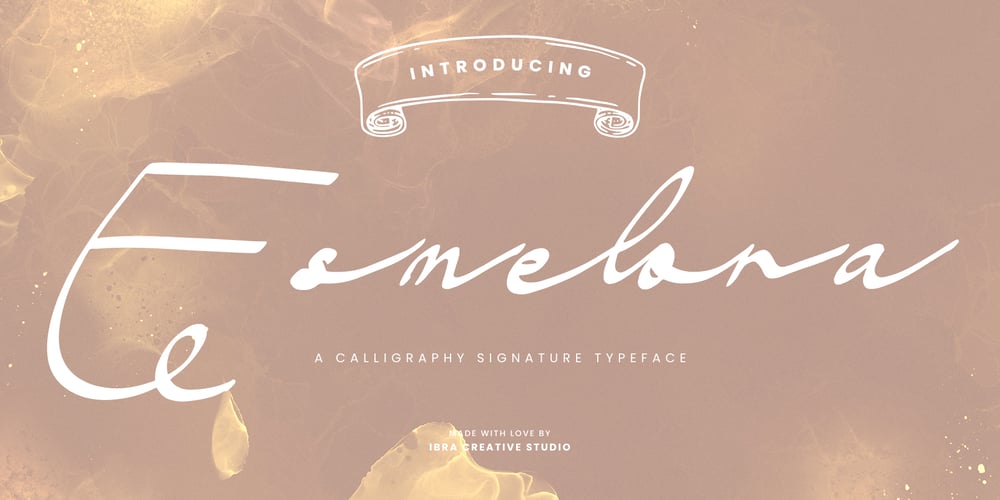
Esmelora Font Family was designed by Roisatul Azizah and published by IbraCreative. Esmelora contains 1 styles and family package options. Esmelora – A Calligraphy Signature TypefaceEsmelora, a captivating calligraphy signature typeface, exudes elegance and refinement with its graceful strokes and fluid lines. Each letter is meticulously crafted to emulate the artistry of a hand-written signature, creating a sophisticated and personal touch. Esmelora’s delicate curves and stylish flourishes lend an air of timeless beauty to any design, making it an ideal choice for invitations, branding, and luxury-oriented projects. The typeface seamlessly blends traditional calligraphic elements with a modern sensibility, resulting in a harmonious balance that is both classic and contemporary. With its intricate detailing and graceful aesthetic, Esmelora elevates the concept of signature fonts, providing a distinctive and memorable typographic solution for those seeking an exquisite and personalized touch in their creative endeavors.Esmelora is perfect for branding projects, logo, wedding designs, social media posts, advertisements, product packaging, product designs, label, photography, watermark, invitation, stationery, game, fashion and any projects.Fonts include multilingual support for; Afrikaans, Albanian, Czech, Danish, Dutch, English, Estonian, Finnish, French, German, Hungarian, Italian, Latvian, Lithuanian, Norwegian, Polish, Portuguese, Slovak, Slovenian, Spanish, Swedish.